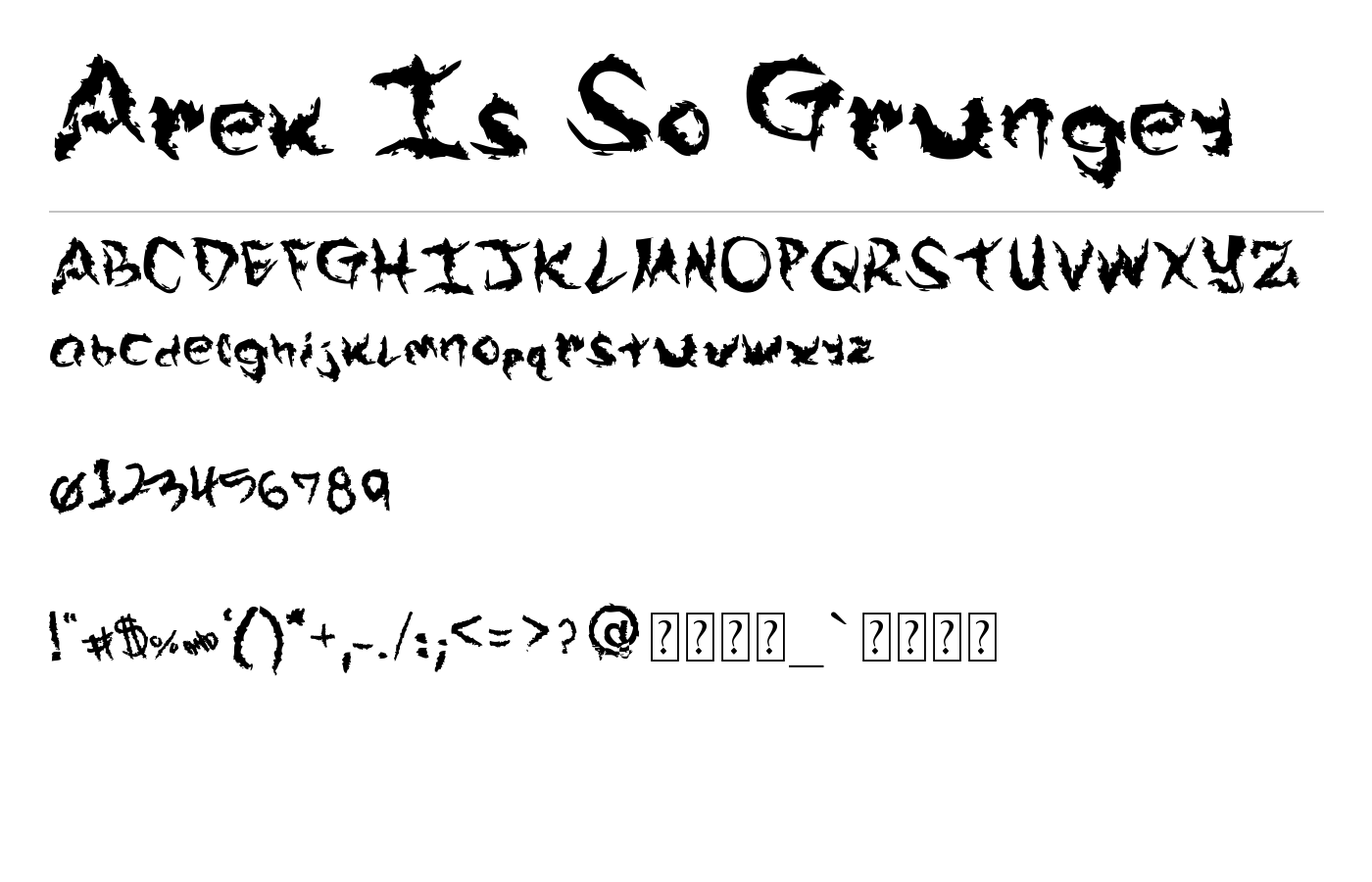
Arek Is So Grungey is a bold, rough-edged display font with a distressed, hand-crafted feel that captures a gritty, rebellious attitude. Its irregular, textured strokes create a dynamic and edgy look, making it perfect for projects seeking an unconventional, raw aesthetic such as posters, alternative branding, and expressive headlines. This font works best where a strong, attention-grabbing personality is needed to convey energy and individuality.
Arek Is So Grungey Font